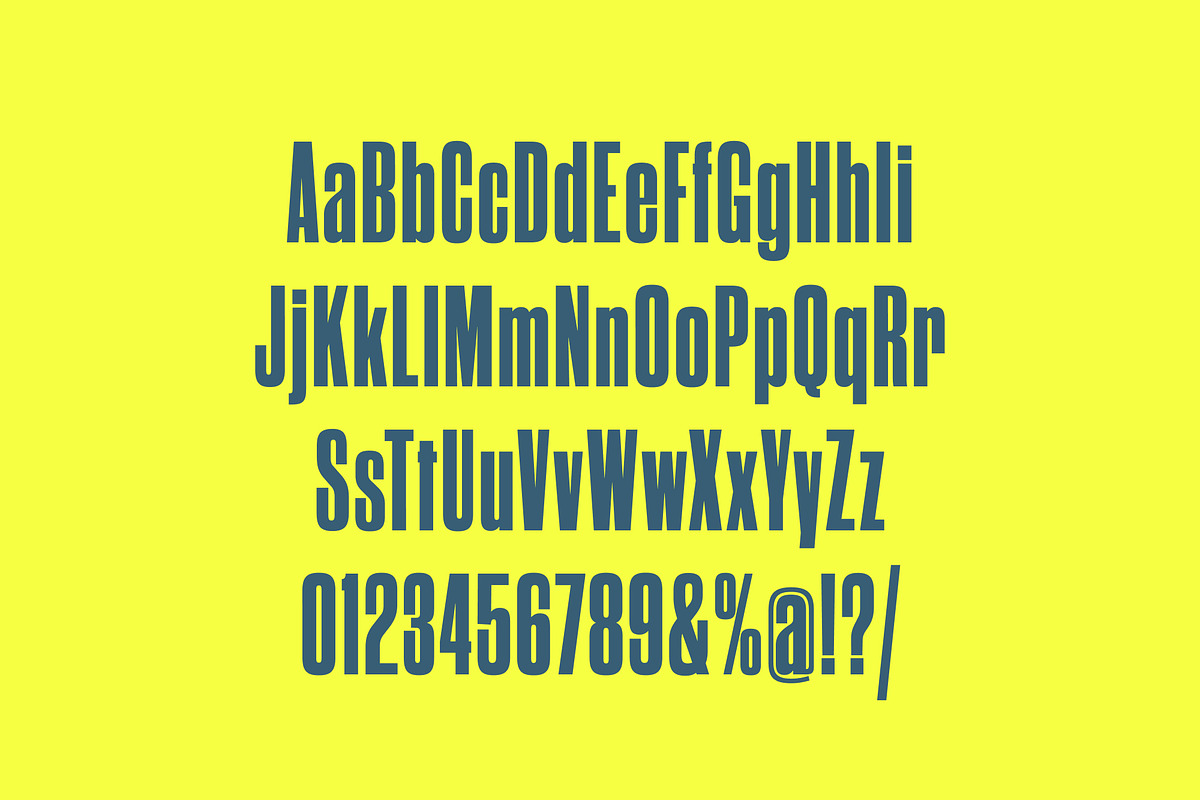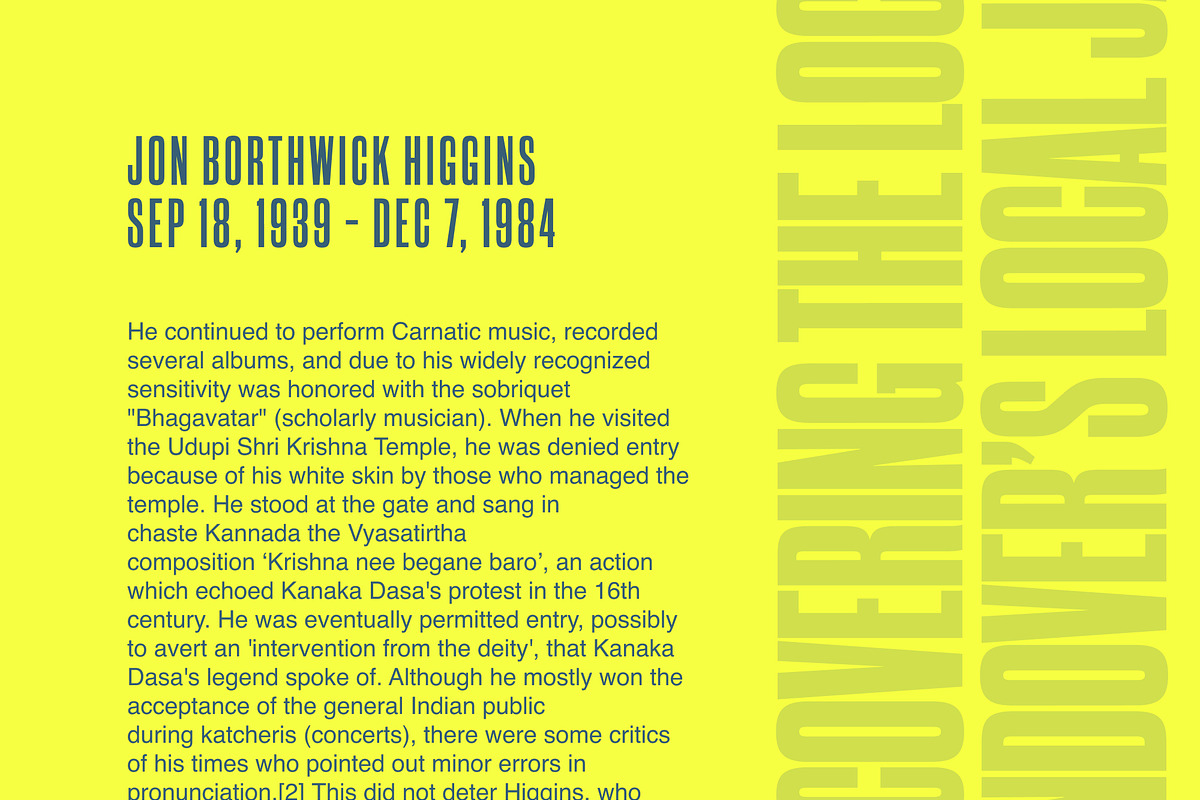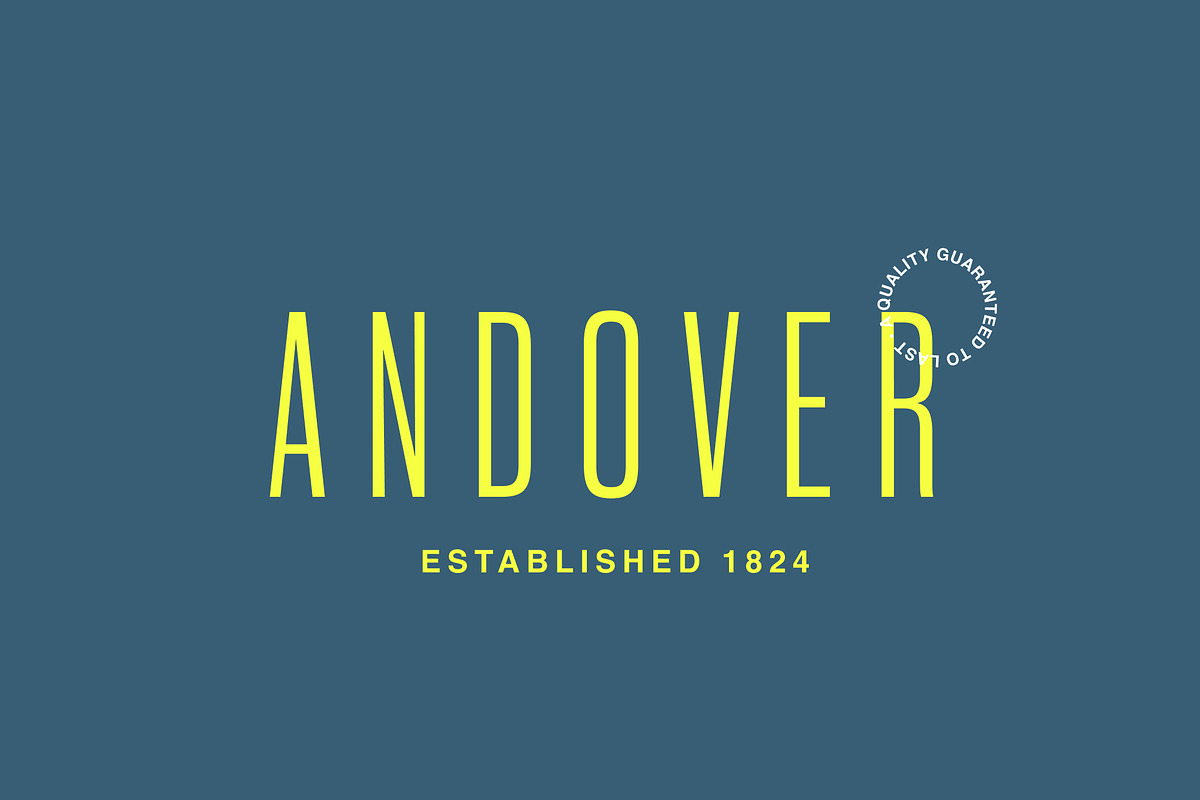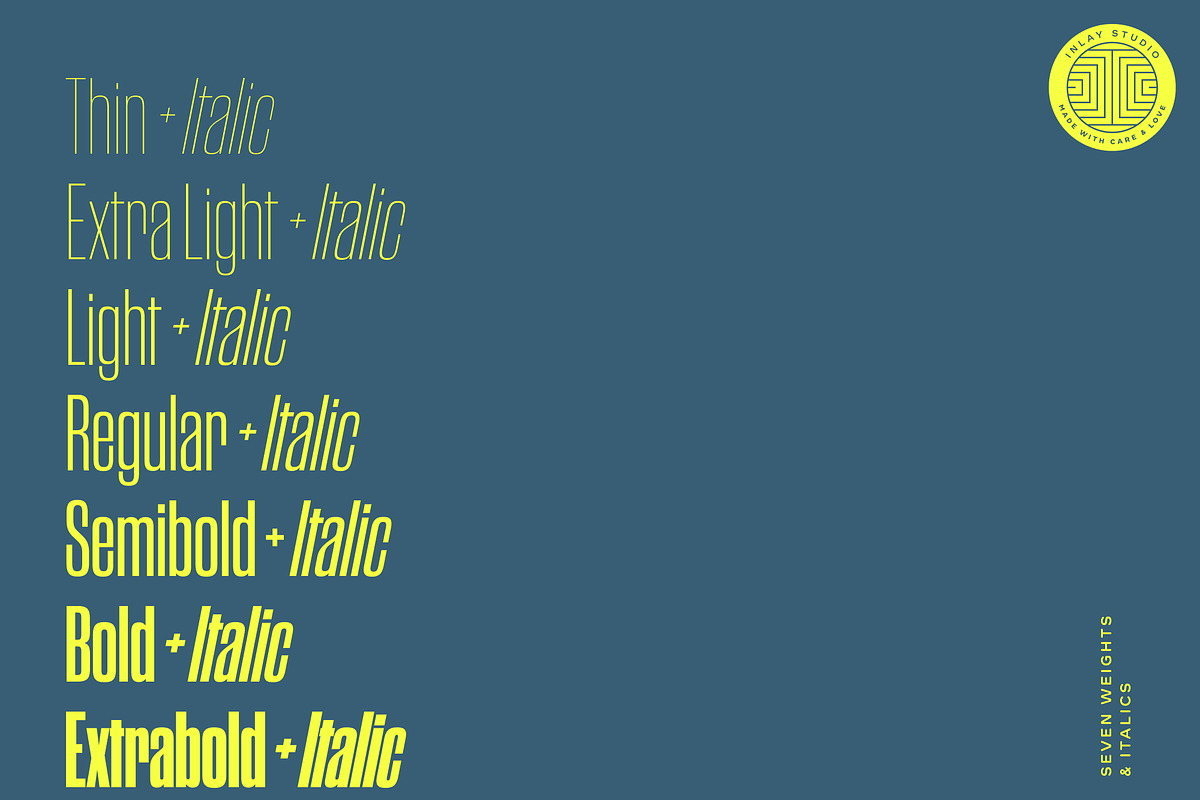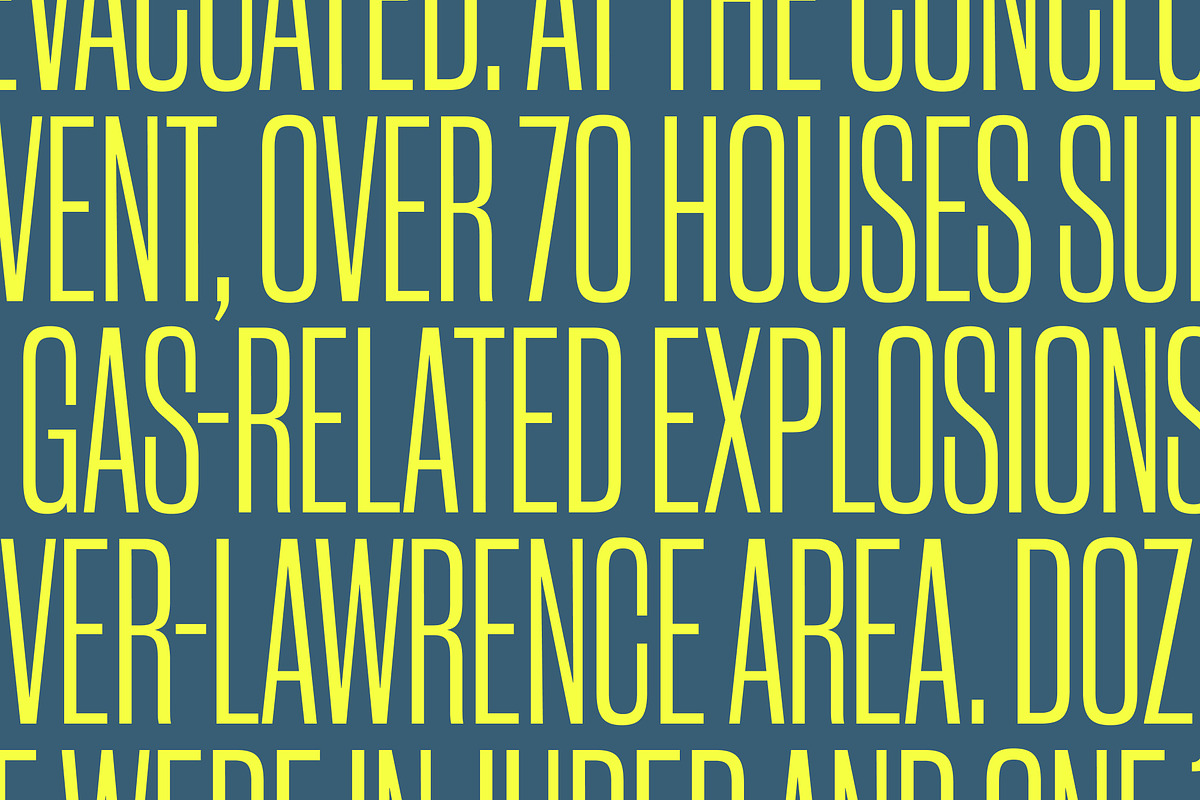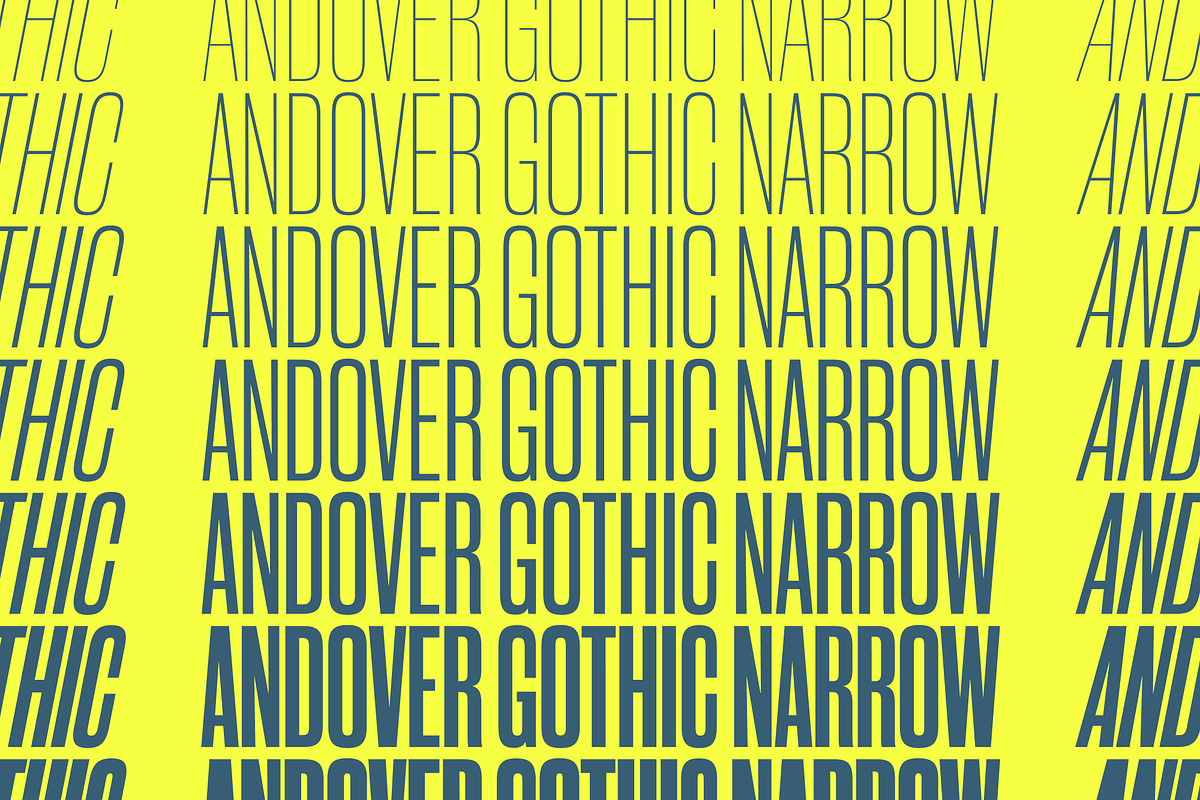
Andover Gothic Condensed — A Grotesk
Meet Andover Gothic Condensed, a powerhouse font designed for maximum headline impact. It ranges from authoritarian in its heavier weights to delightfully quirky at the lighter weights.
Available in 7 weights and italics